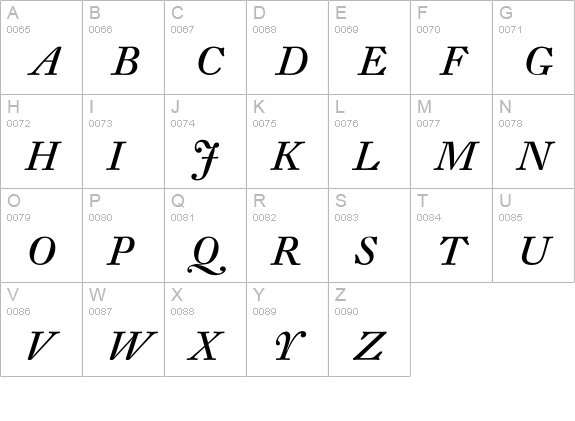
DTL Fleischmann T Italic Font Details
DTL Fleischmann T Italic is a distinctive, italic variant in the DTL typeface family \xE2\x80\x94 well suited to design and typography projects.
The DTL Fleischmann T Italic font is a stunning and elegant typeface that exudes sophistication and style. Its sleek and modern design makes it perfect for a wide range of design projects, from branding to editorial design. The italic style adds a touch of flair and personality to any text, making it stand out and capture the reader's attention. What sets this font apart is that it is not only visually appealing but also versatile and highly readable. Whether used for headlines, body text, or captions, the DTL Fleischmann T Italic font delivers a polished and professional look every time. Best of all, this exquisite font is available for free download at FontsMarket.com, making it accessible to designers and creatives looking to elevate their projects without breaking the bank. Don't miss out on this fantastic opportunity to add a touch of sophistication to your designs with the DTL Fleischmann T Italic font.